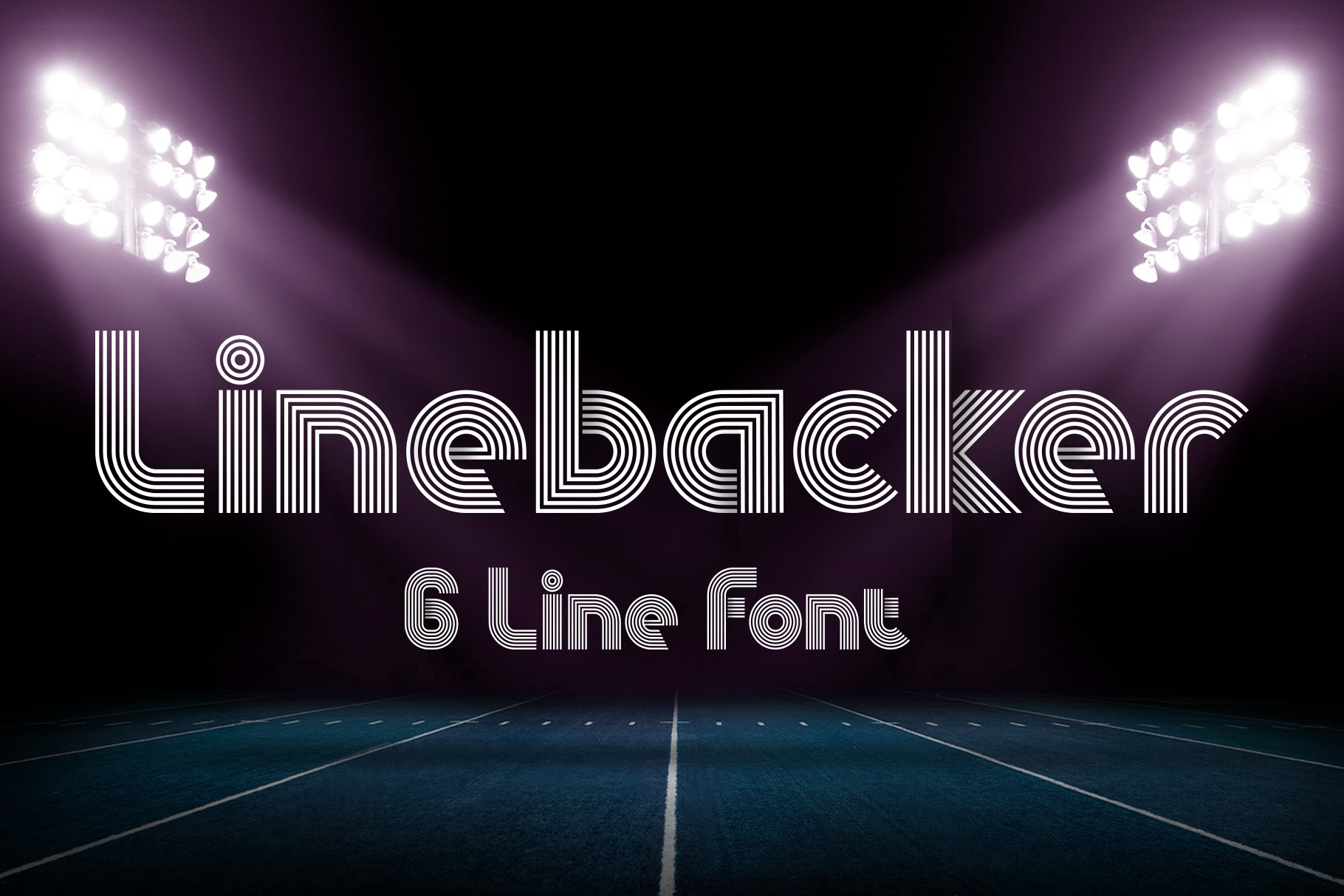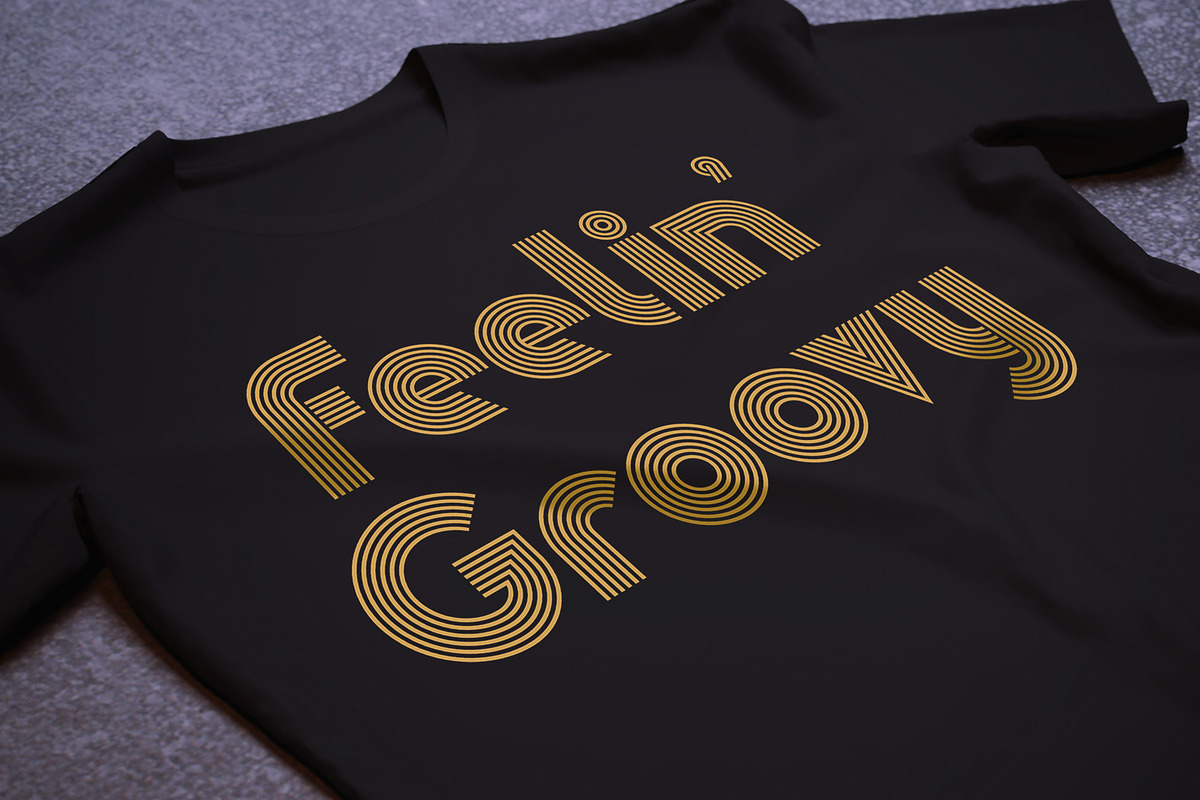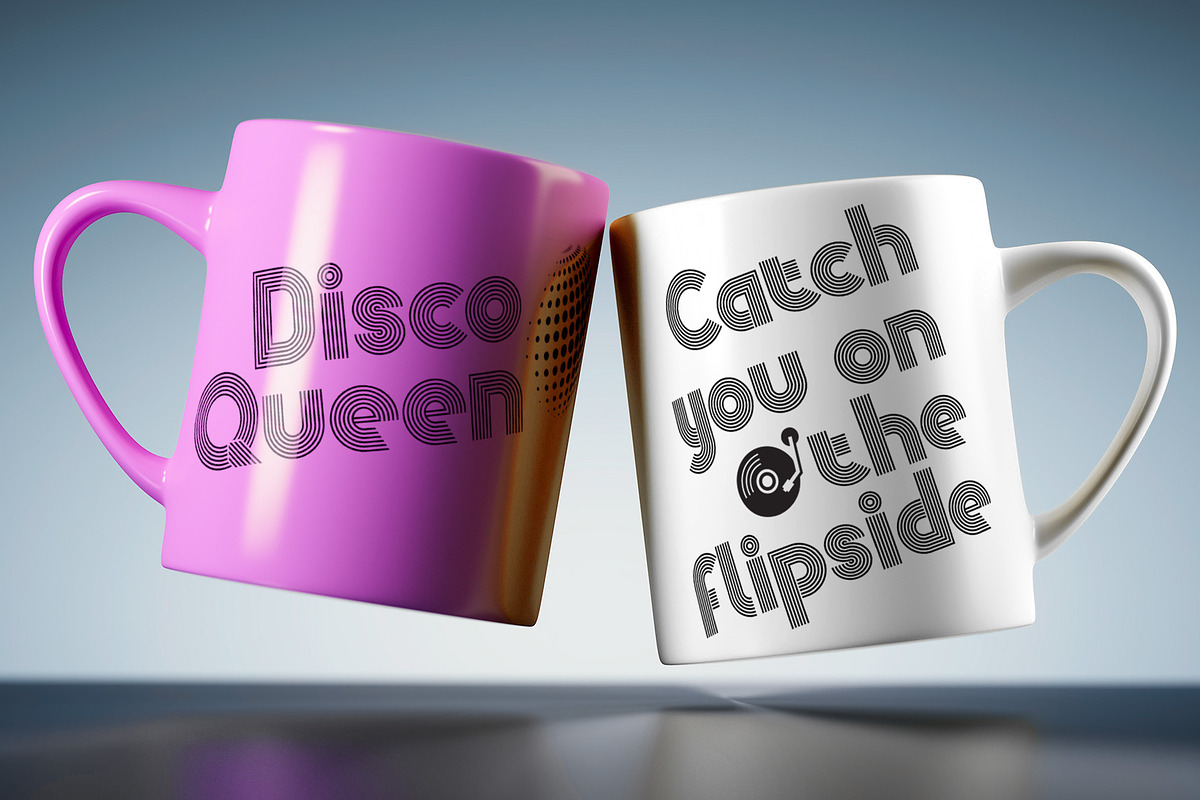
Linebacker - Font
Just like its namesake in gridiron football, Linebacker is wide and strong. With a large glyph set of 379 characters, Linebacker can cover many languages.